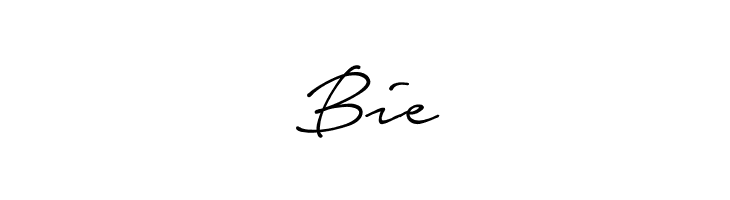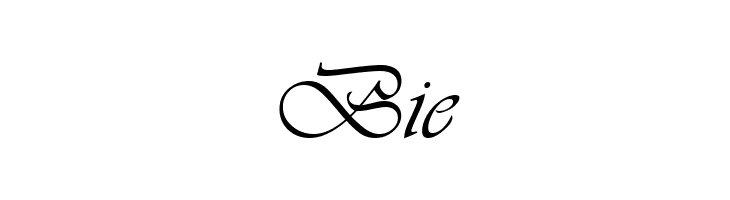
A flowing, cursive font with elegant, interconnected characters.
An elegant script font with intricate swashes and flowing lines.
A dynamic and elegant script font with flowing curves and smooth connections.
A dynamic and elegant script font with flowing, cursive letterforms and ornate uppercase characters.
A refined and elegant script font with flowing, connected characters.